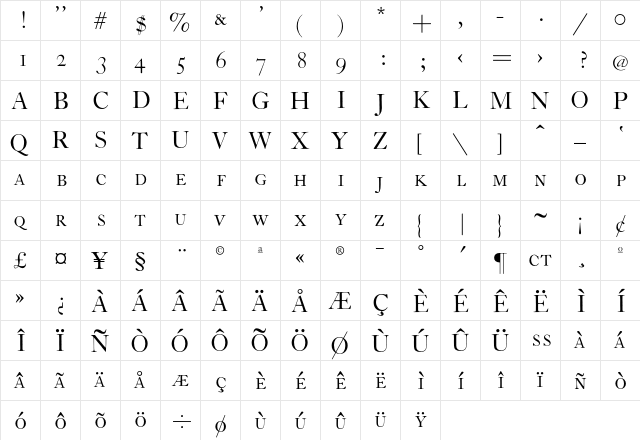
CaslonH-SC Regular
Design Context for CaslonH-SC Typeface
CaslonH-SC takes a measured approach to typography — its balanced proportions and neutral character make it a reliable workhorse for both digital and print work.